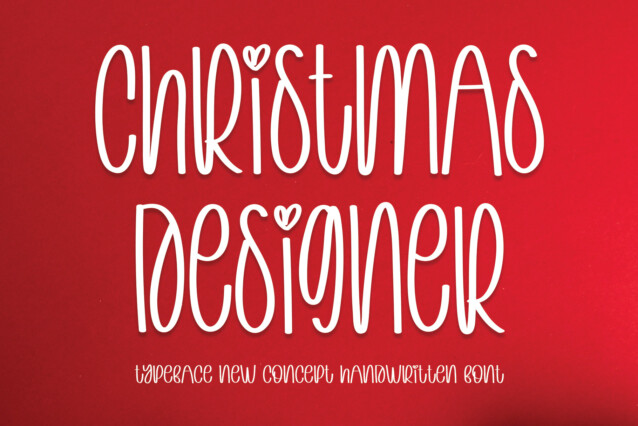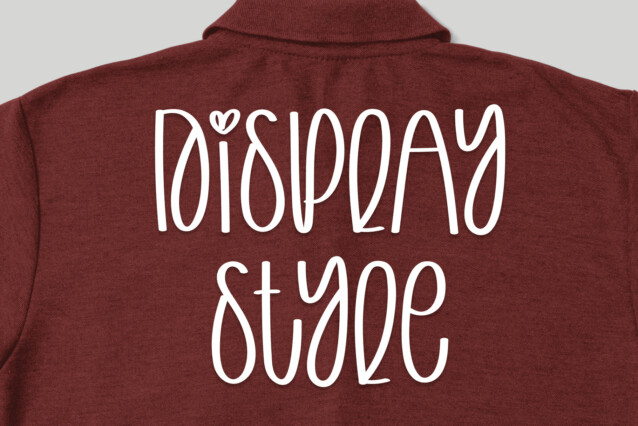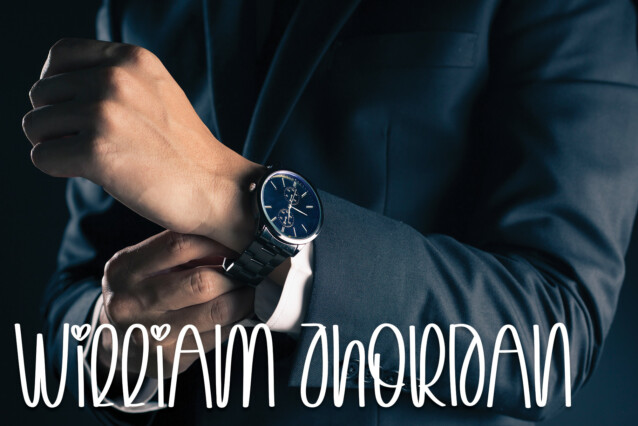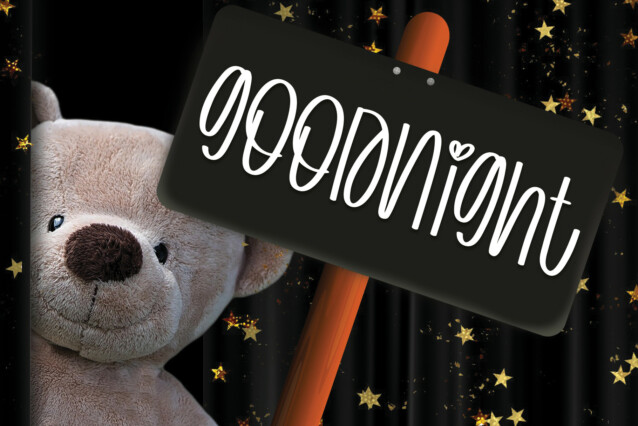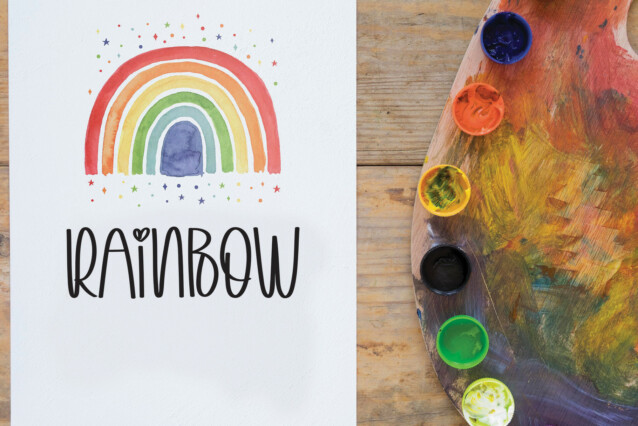
Christmas Designer Display Font
Christmas Designer Font’s latest style letters are perfect for wall displays, wedding invitations, social media post logos, advertisements, product packaging, product designs, labels, photography, watermarks, invitations, stationery, and any project that requires a taste for handwriting.